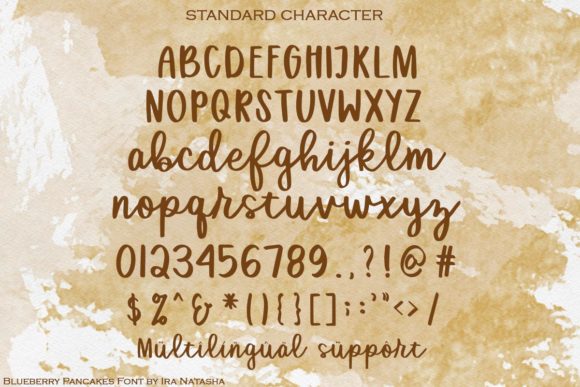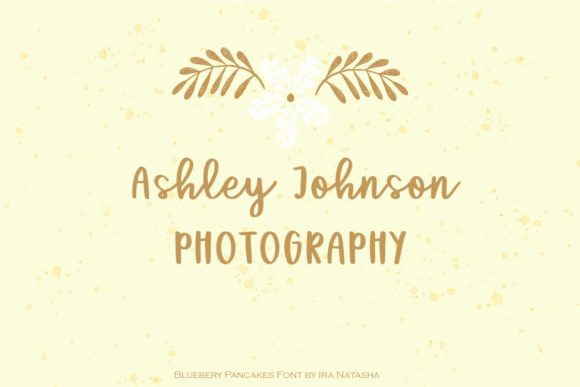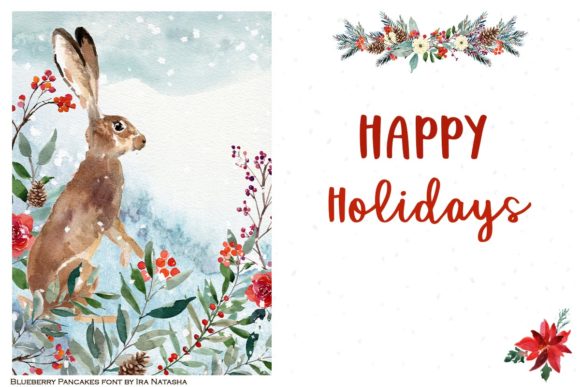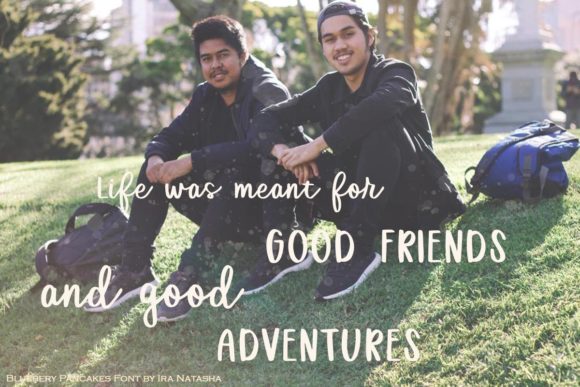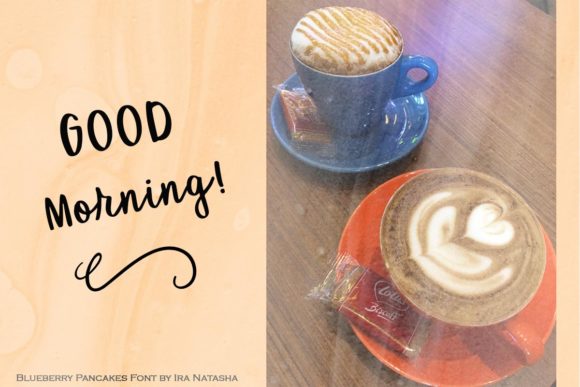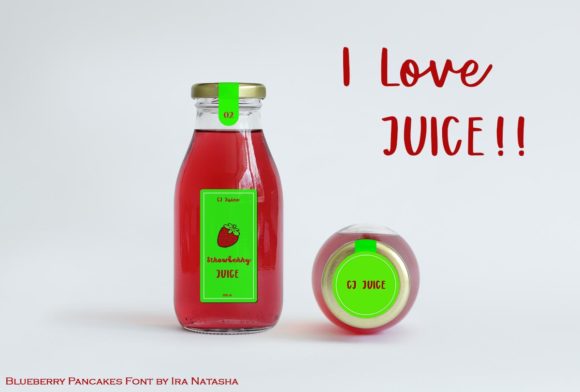
The Perfect Stack: Unlocking the Magic of Blueberry Pancakes Font
You know that moment when you’re brainstorming a new project and everything just clicks? The idea flows, the design takes shape, and you feel like a creative genius? For designers, that feeling is a beautiful thing – and it’s exactly what the Blueberry Pancakes Font is designed to evoke. This stunning typeface is a masterclass in balance and elegance, effortlessly blending classic calligraphy with modern flair.
Whether you’re crafting a logo, a brochure, or a social media campaign, the Blueberry Pancakes Font is the perfect addition to your design arsenal. With its versatility and sophistication, it’s no wonder this font has become a favorite among designers. And now, it’s your turn to experience the magic of the Blueberry Pancakes Font and take your projects to new heights.
- Character Set: This font includes a comprehensive set of characters, including uppercase and lowercase letters, numbers, punctuation marks, and special characters, making it suitable for various design applications.
- Unique Characteristics: The Blueberry Pancakes Font features a playful, handwritten design with subtle imperfections, giving it a personal and charming touch. The font’s irregularities add to its unique charm and make it stand out from more formal fonts.
Designer Review: Blueberry Pancakes Font
Overall, I’d say the Blueberry Pancakes Font is a fun and playful choice for any project that needs a casual, breakfast-inspired vibe. ✨ The font’s rounded edges and bubbly feel make it perfect for headings or titles, and it’s definitely eye-catching.
Here are some specific things that I think work well:
- The font’s size and style variations are great for creating visual hierarchy and emphasis.
- The font is highly legible, even at smaller sizes.
- The font’s uniqueness and quirkiness make it stand out from more generic sans-serif fonts.
However, I do think there are some limitations to consider:
- The font may be too playful or childish for more serious or formal projects.
- The font’s spacing and kerning may not be ideal for longer blocks of text.
- The font’s limited character set may make it less suitable for projects that require a wide range of special characters or symbols.
Overall, I think the Blueberry Pancakes Font is a great choice for designers who want to add a fun and playful touch to their projects. Just be sure to use it judiciously and consider the project’s tone and requirements.
The Blueberry Pancakes Font is ideal for:
- Cafe and restaurant branding
- Food-related marketing materials
- Whimsical and playful designs
Remember to experiment with different font sizes, colors, and arrangements to get the most out of this unique font.